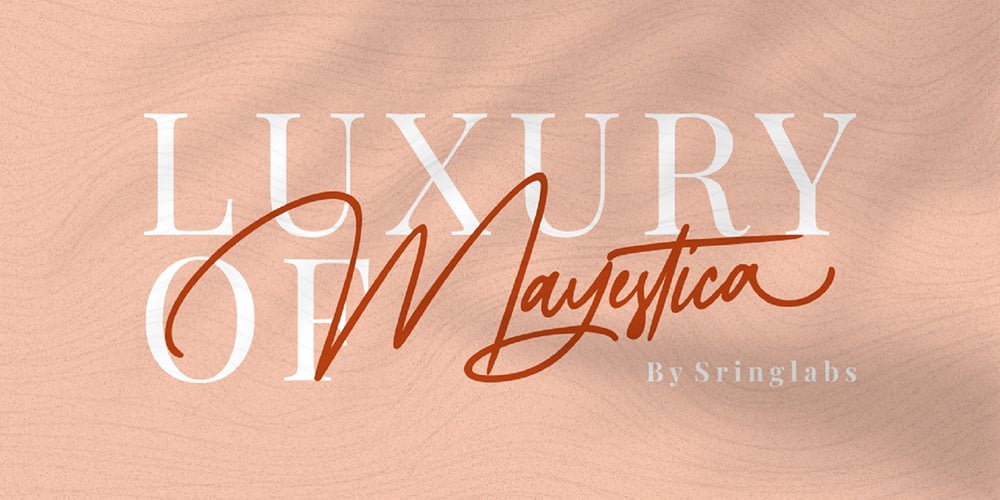
Mayestica Font Family was designed by Virgiawan Listanto and published by Stringlabs Creative Studio. Mayestica contains 1 styles and family package options. Mayestica is a luxurious script font with a sophisticated style. Use it to turn any design project into a true standout! The Mayestica font is a great choice to increase the prominence in your project. Although the typography is traditional, the basic elements are great.